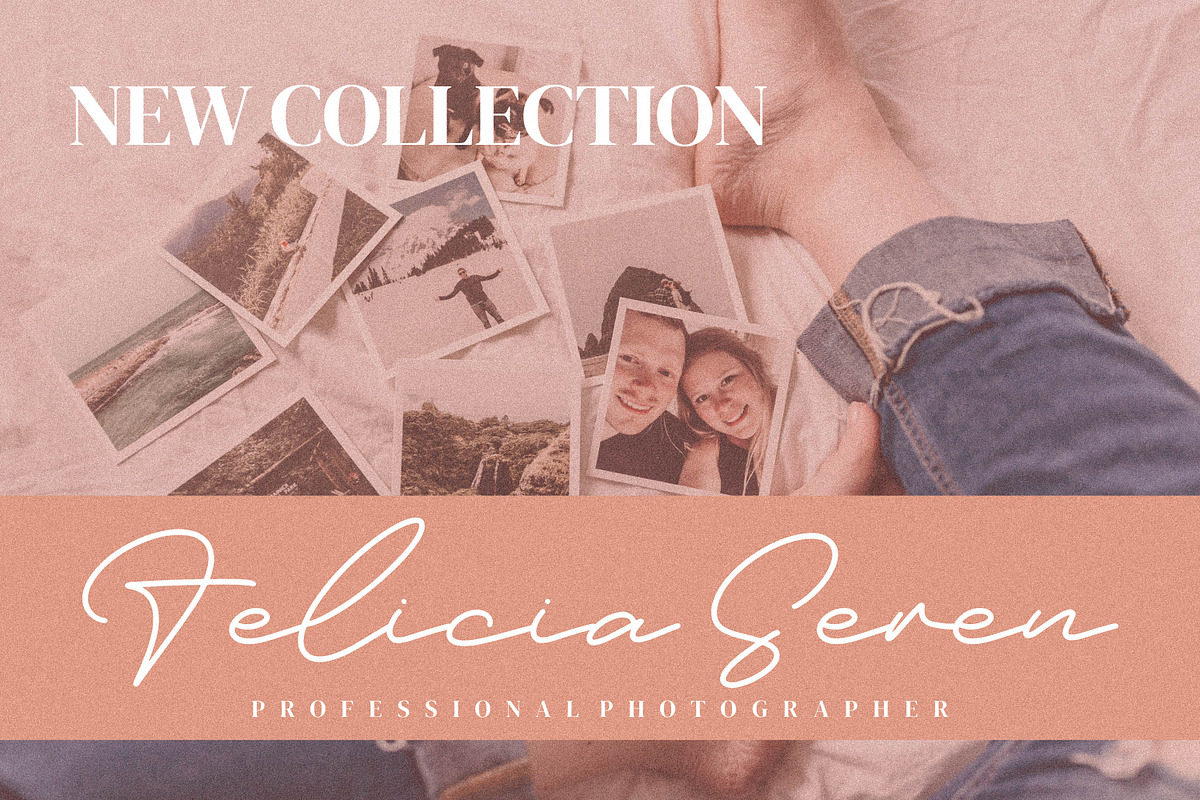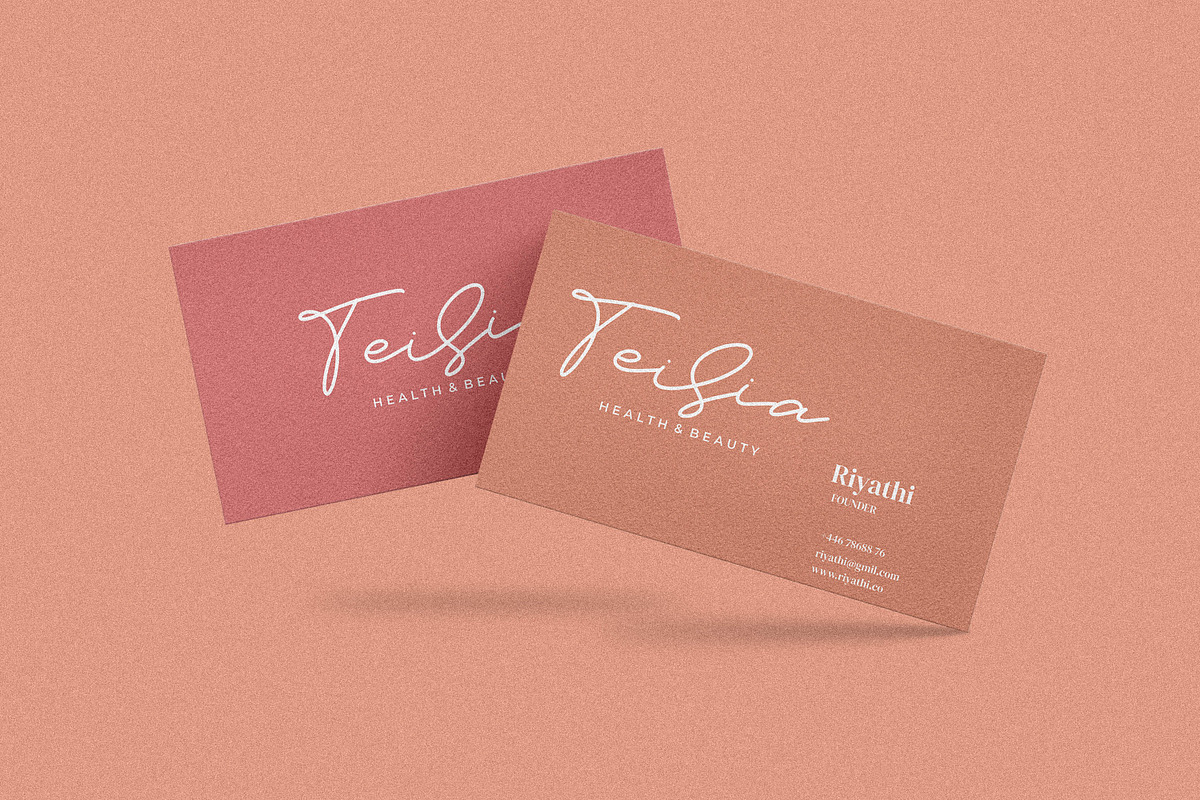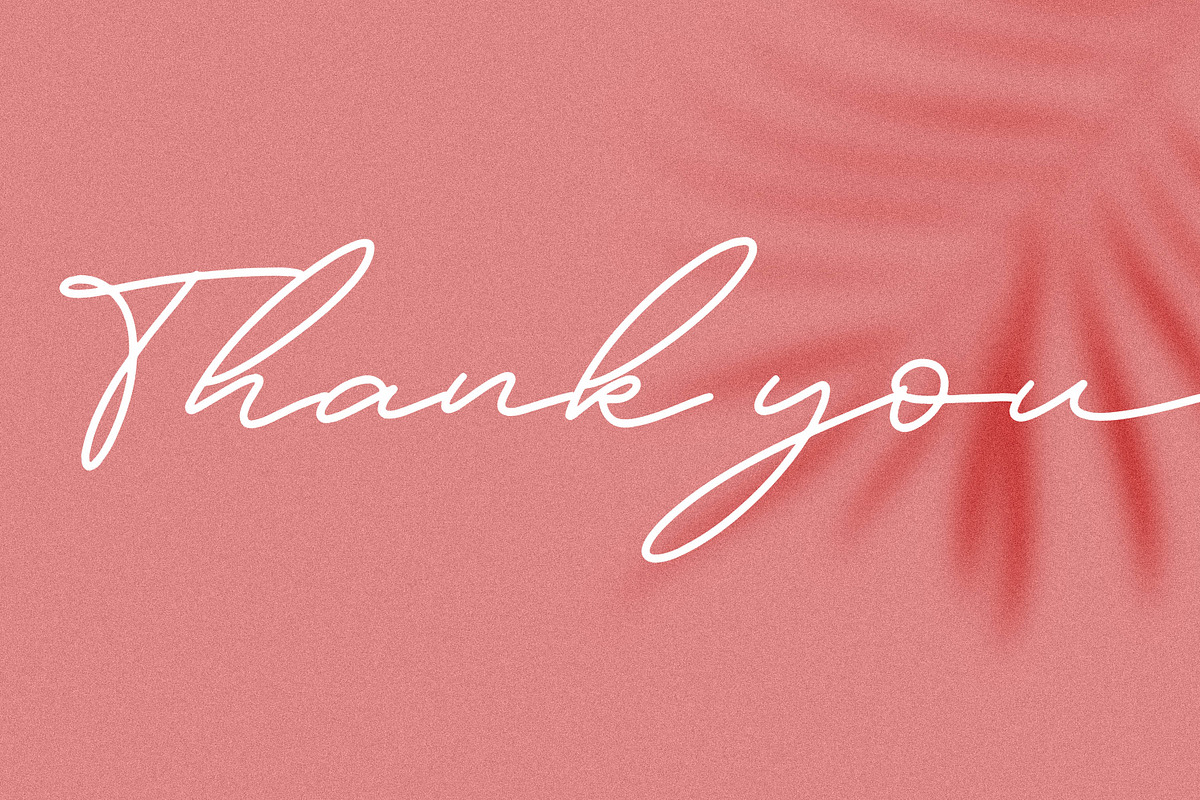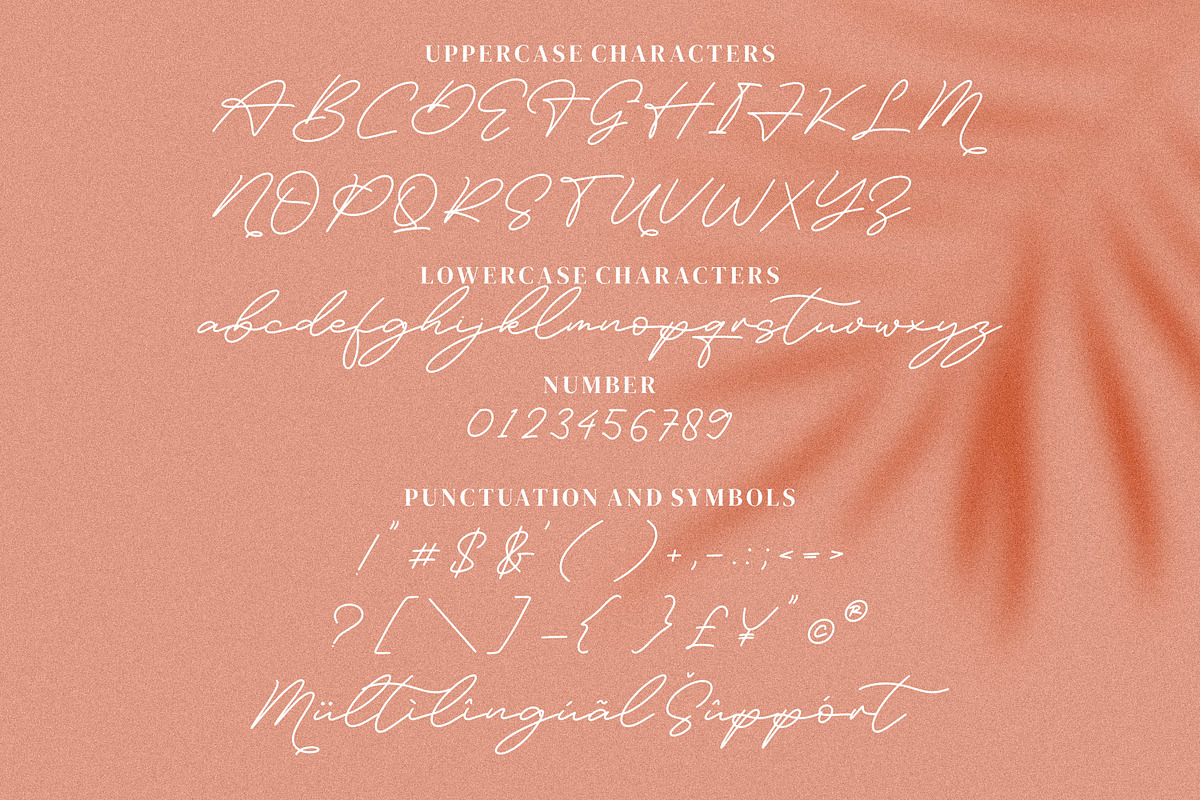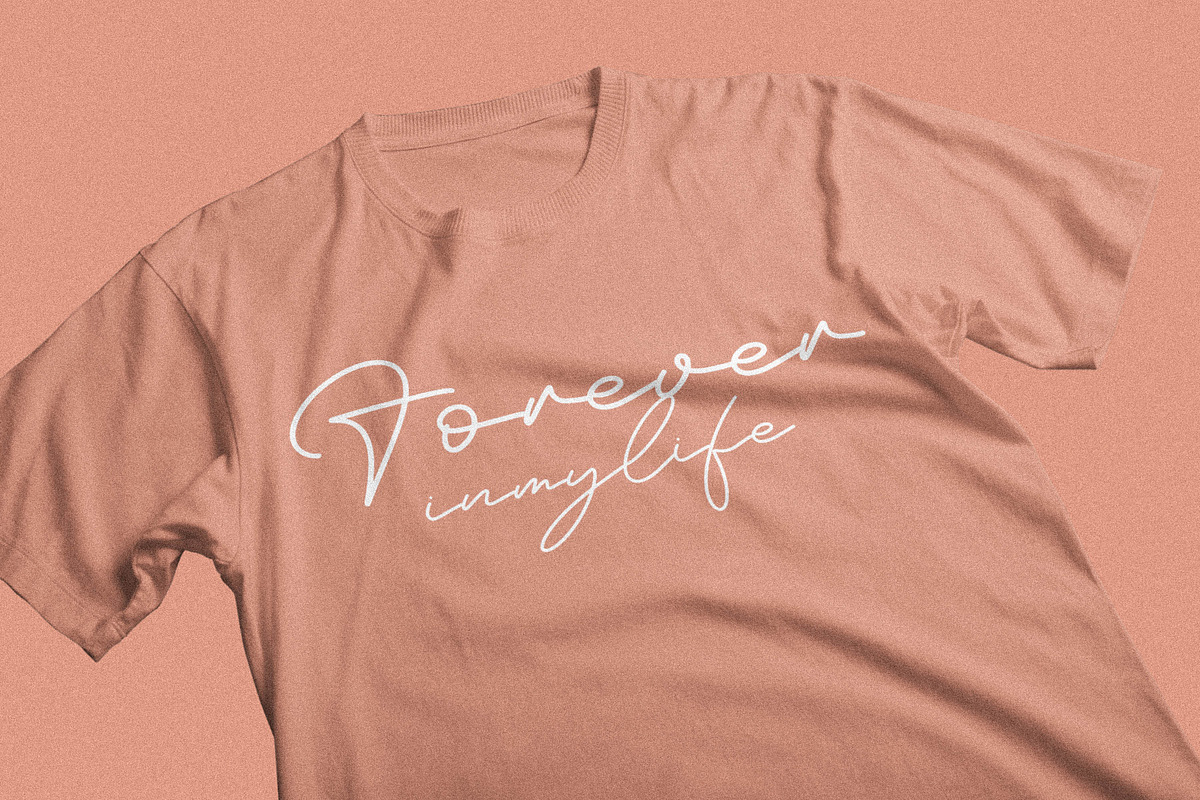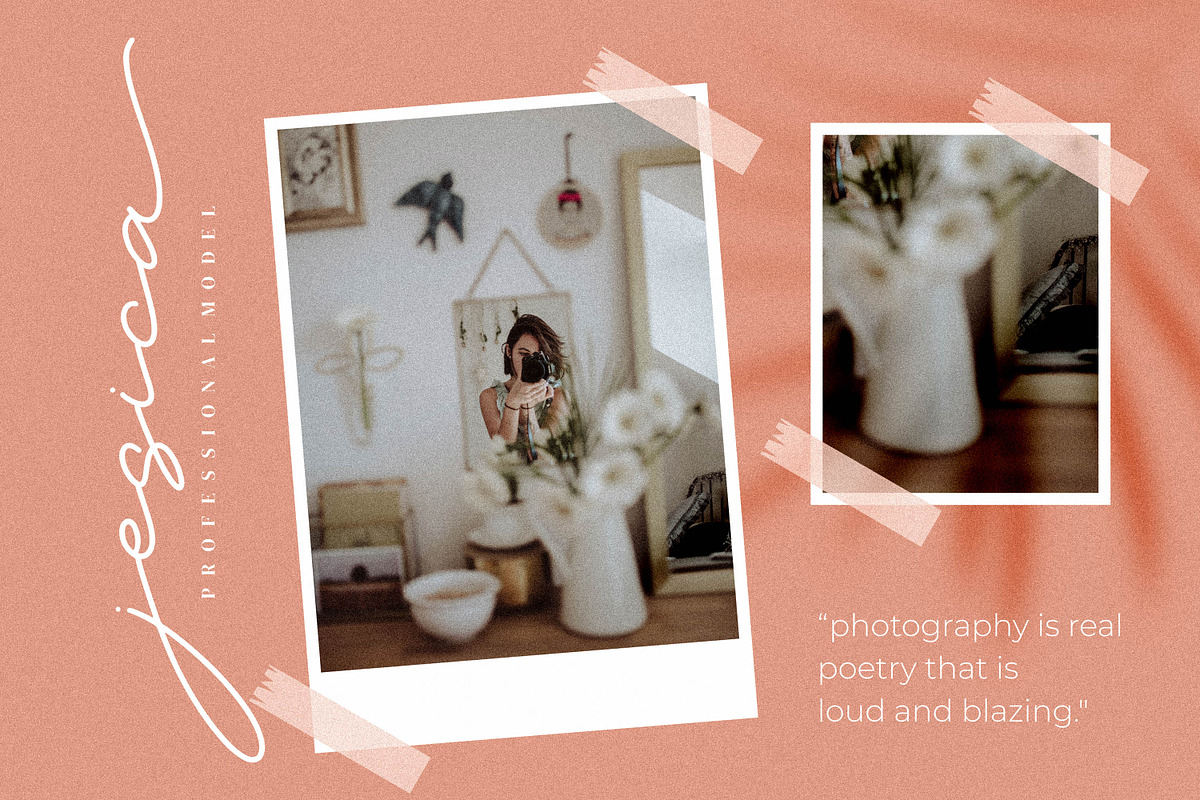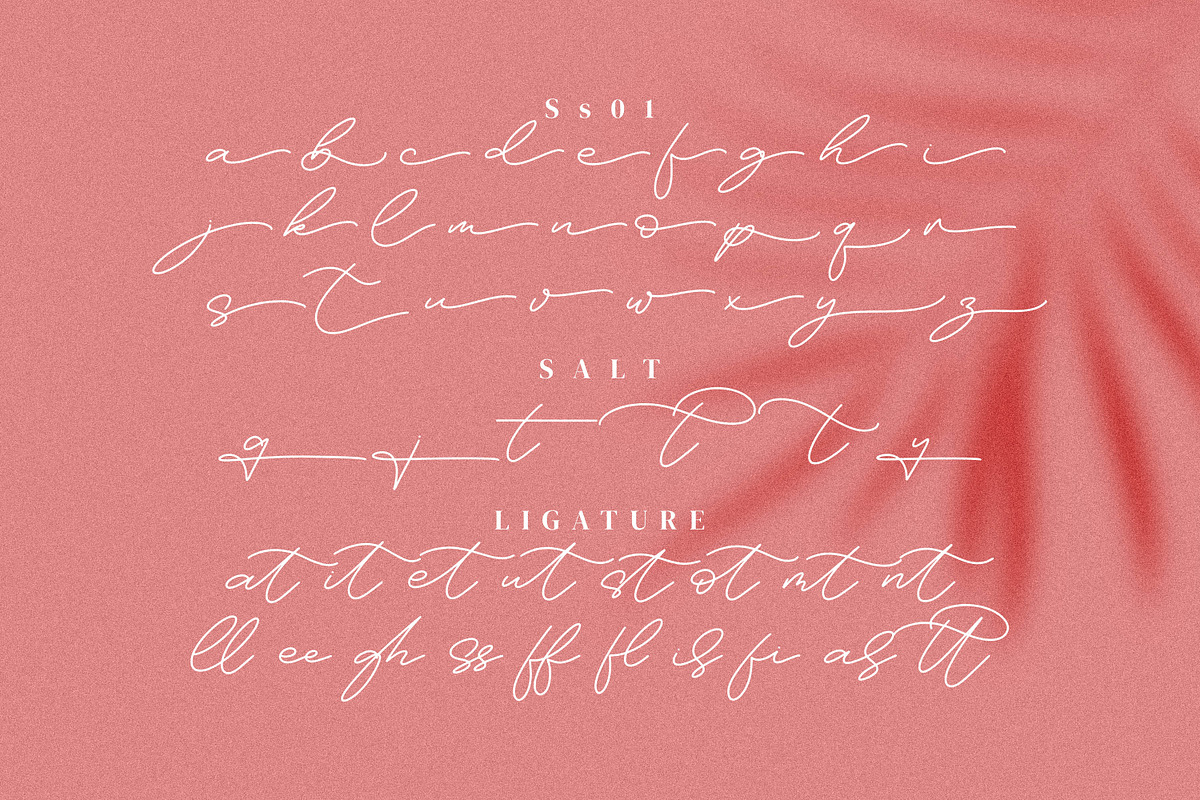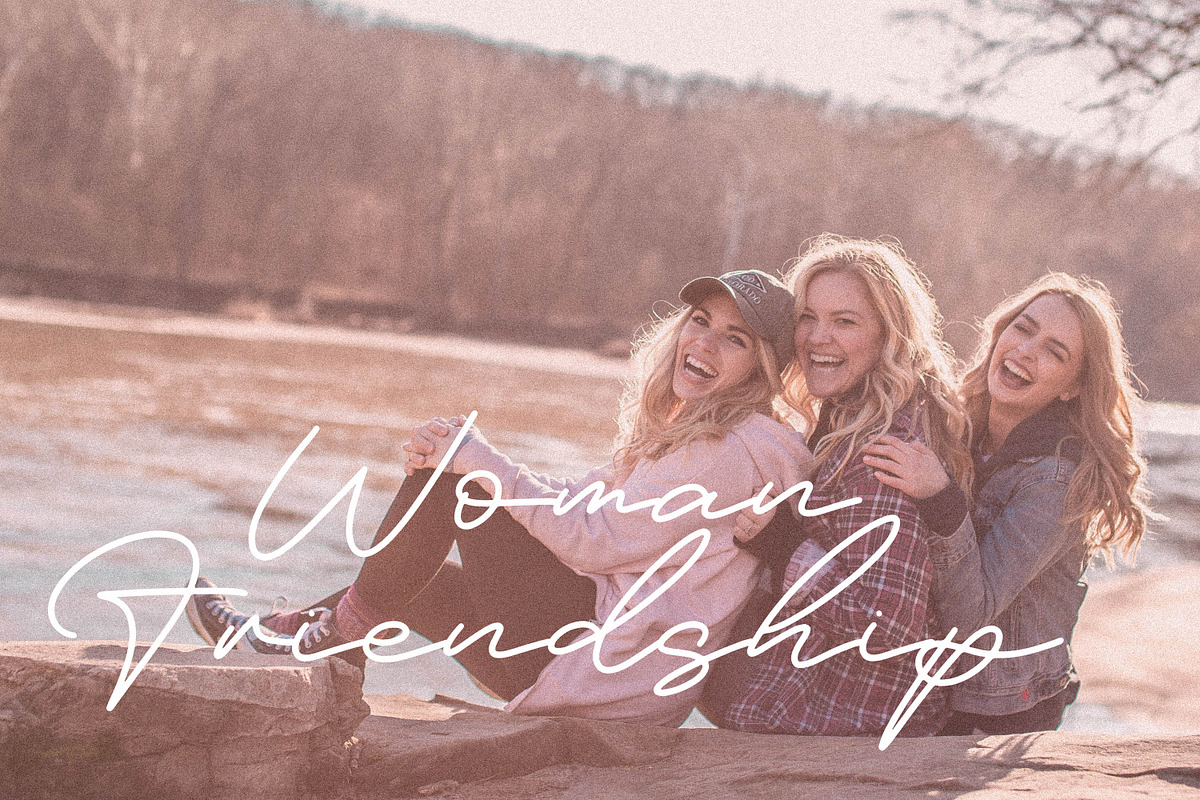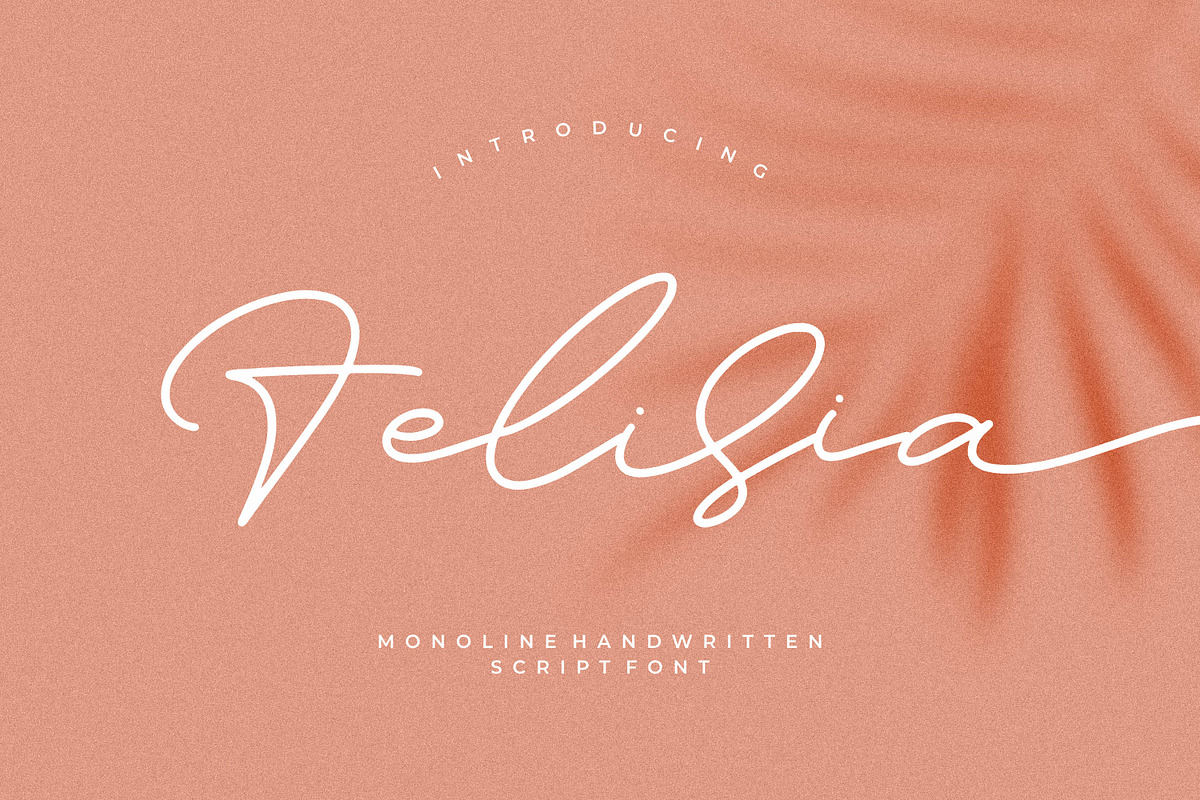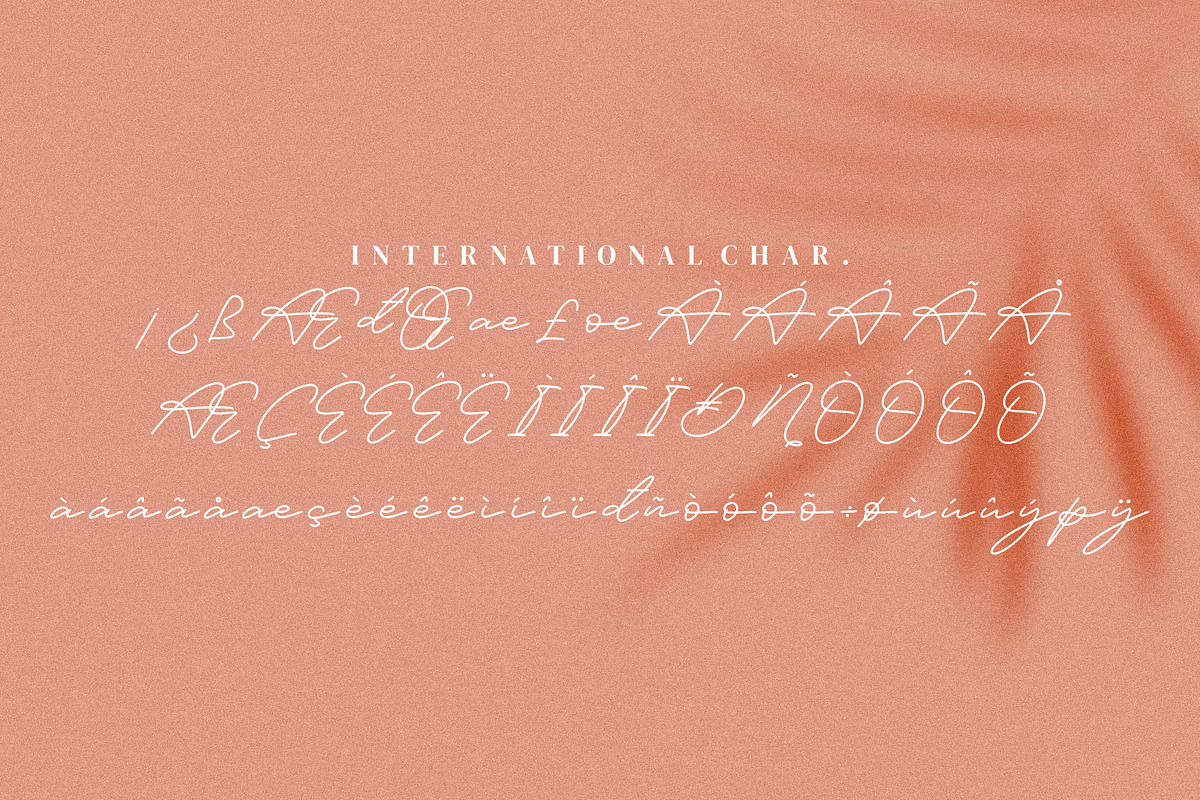
Felisia
Felisia - Monoline Handwritten Script Font, from Integritype Studio, is a premium Monoline Handwritten Script Font, perfect for any project like: logos, branding projects, homewares designs, product packaging, mugs, quotes, posters, shopping bags, t-shirts, covers books, business cards, invitation cards, greeting cards, labels, photography, watermarks, special events and all your other luxury projects that require a premium taste.
Ligatures, Alternatives & Swashes